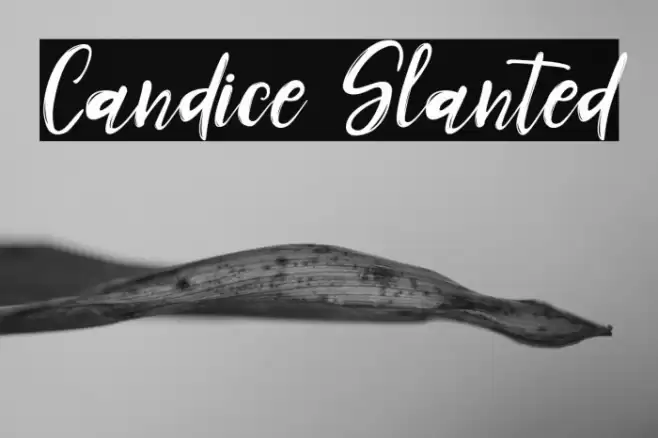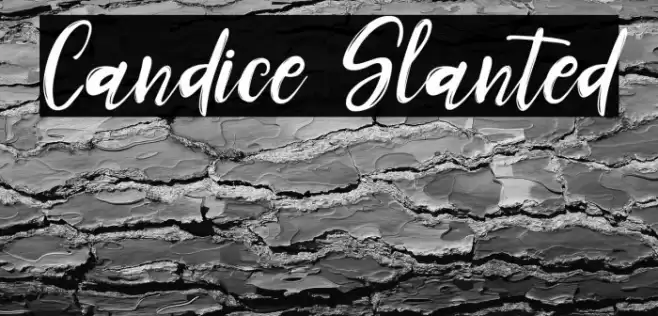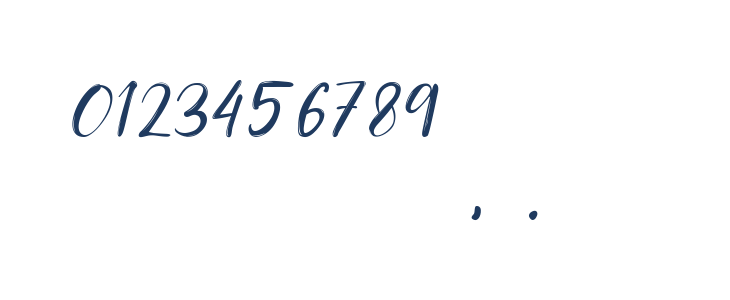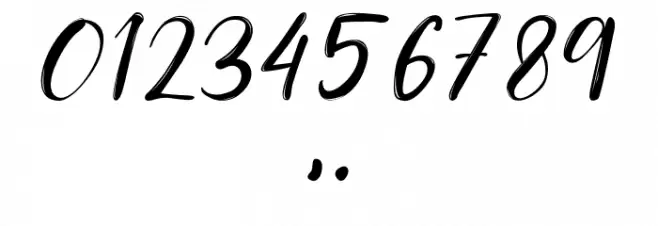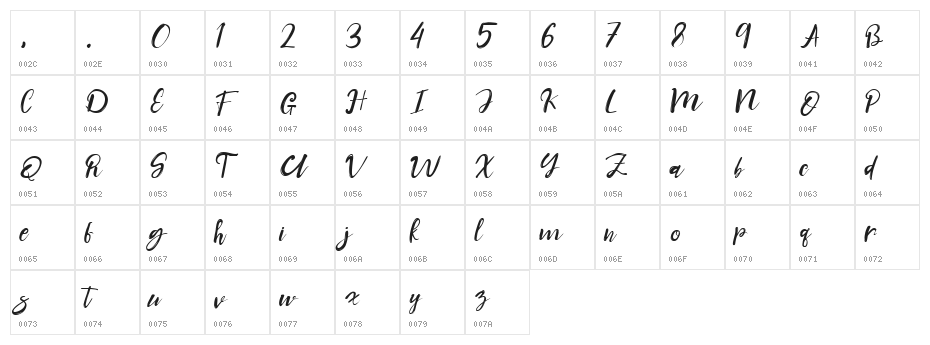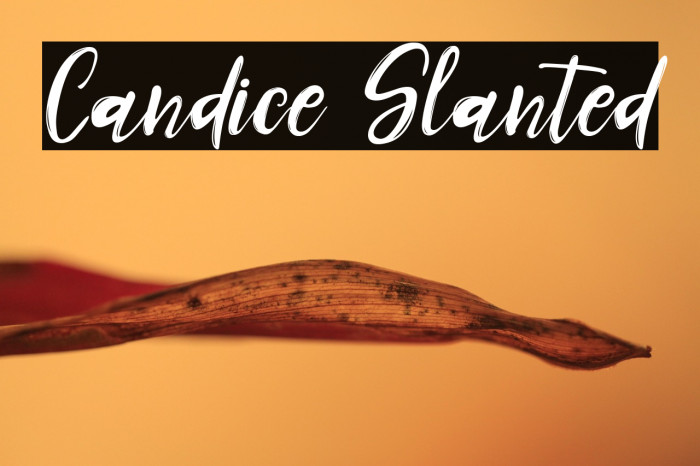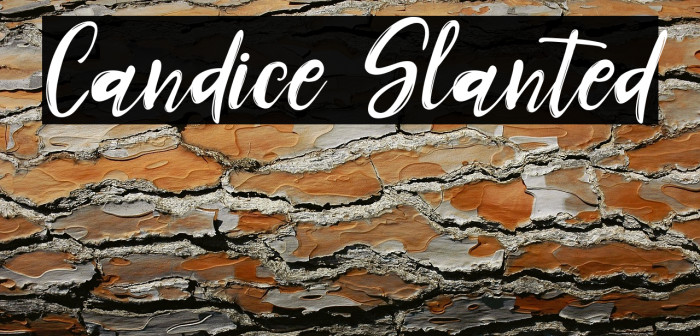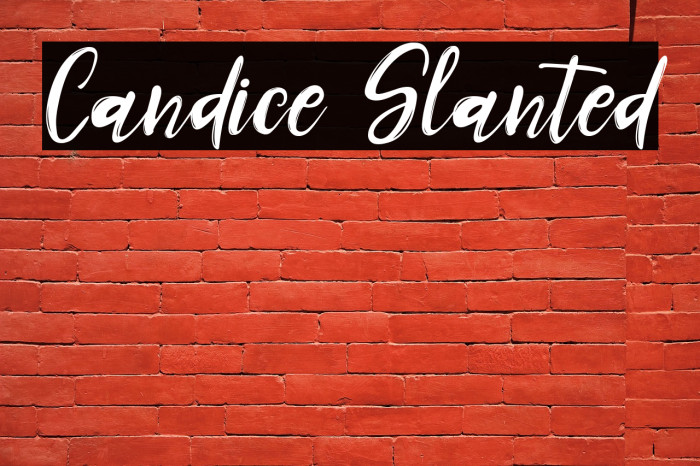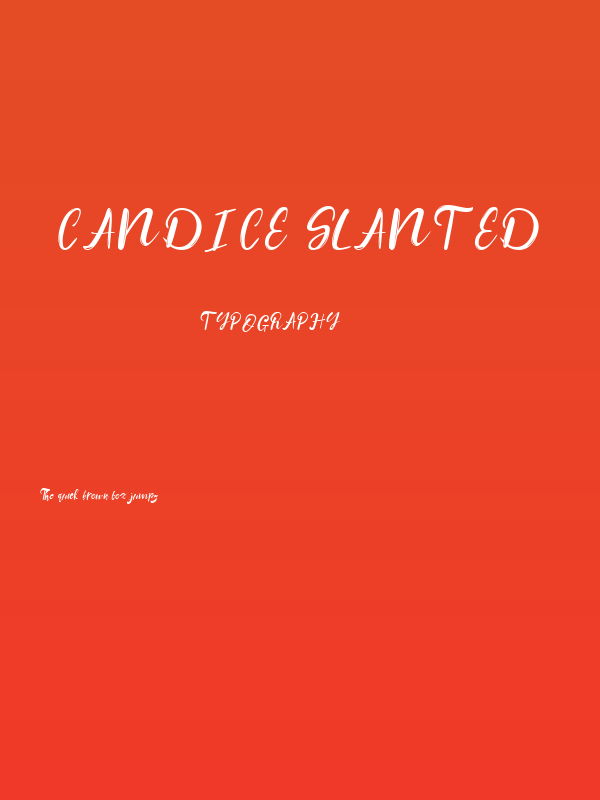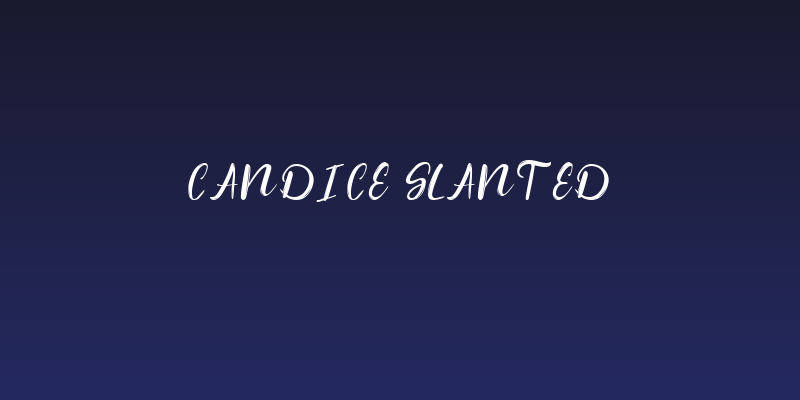
Candice Slanted Font
Candice Slanted Description
This font features a flowing, cursive style with a slanted orientation, giving it an elegant and dynamic appearance. The characters are connected, mimicking the fluidity of handwriting, which adds a personal touch to any text. The strokes vary in thickness, providing a medium contrast that enhances readability while maintaining a stylish flair. The uppercase letters are bold and prominent, while the lowercase letters are more delicate, creating a balanced visual hierarchy. This font's artistic nature makes it suitable for creative projects where a touch of sophistication is desired.
A slanted, cursive font with medium contrast and elegant, flowing strokes from Regular fonts.
- Font: Candice Slanted
- Proposed Projects: Ideal for wedding invitations, greeting cards, branding, and logo design where a personal and elegant touch is needed.
- Overall Style: Elegant
- Use Case: Logos, Invitations, Decorative text